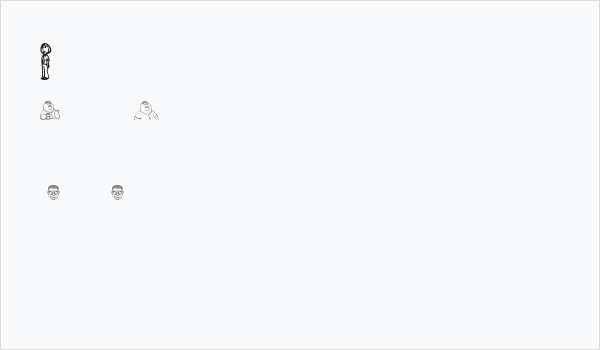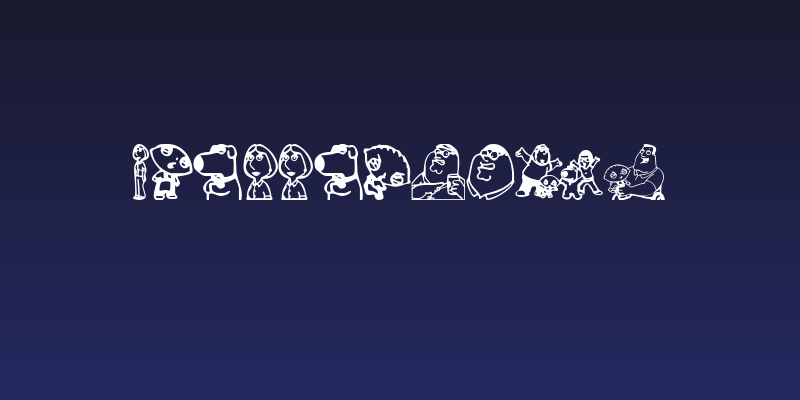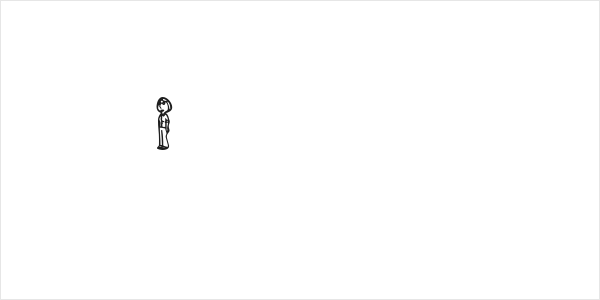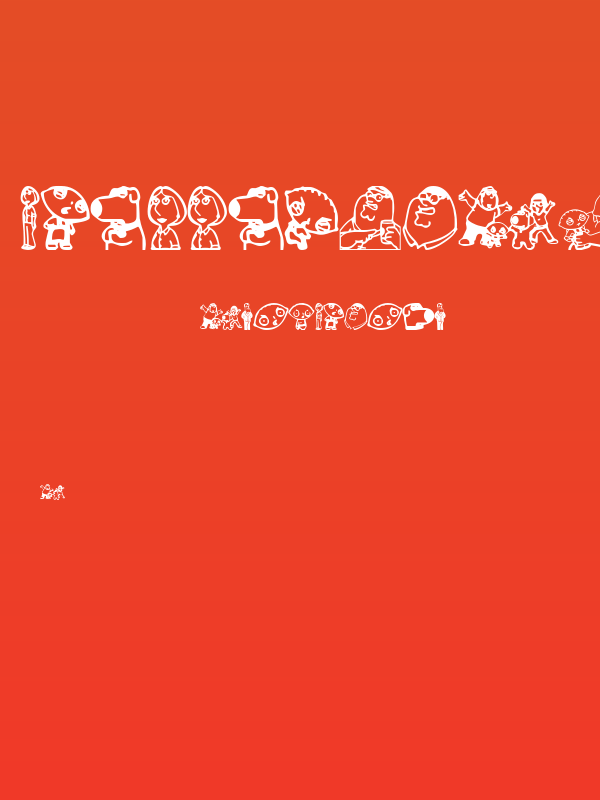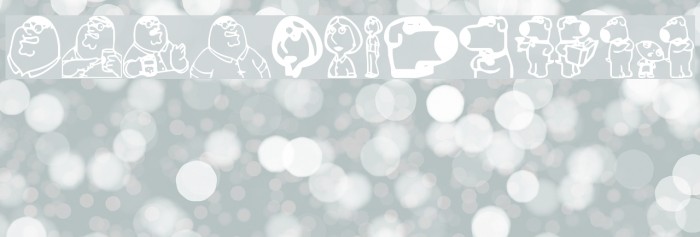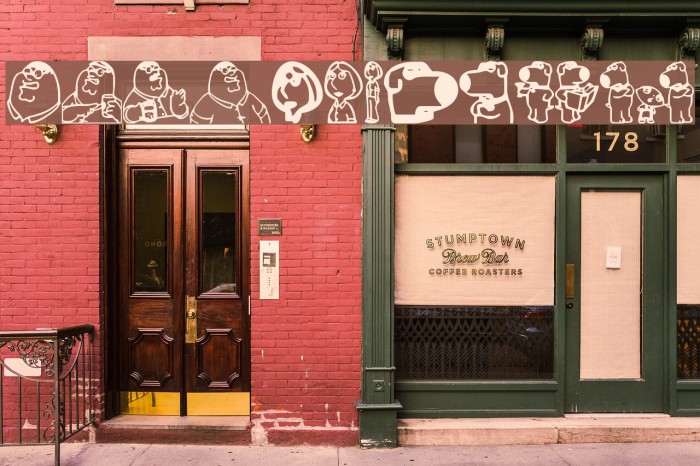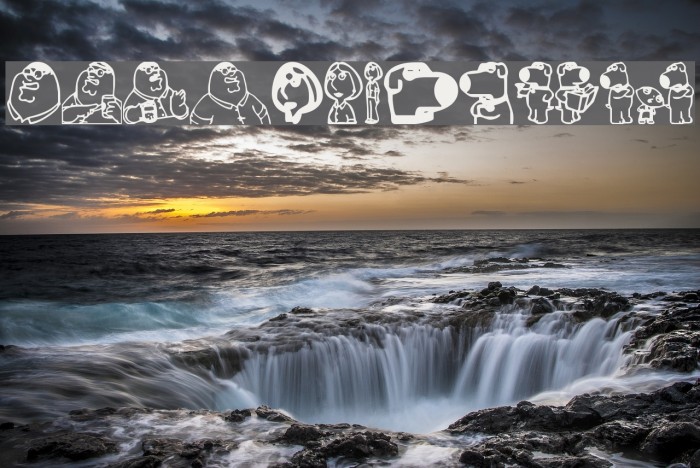
Griffinbats Font
Griffinbats Description
A decorative dingbat font featuring cartoon-style character illustrations with bold outlines and exaggerated features, each glyph representing a unique character or scene rather than traditional alphanumeric symbols.
| Overall Style | Decorative, Cartoonish, Playful |
| Use Case | Decorative elements, Themed graphics, Posters, Invitations |
| Proposed Projects | Party invitations, fan art, themed posters, novelty merchandise, comic strips. |